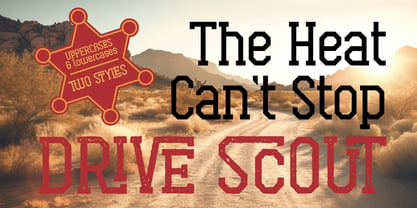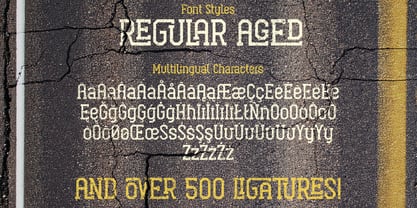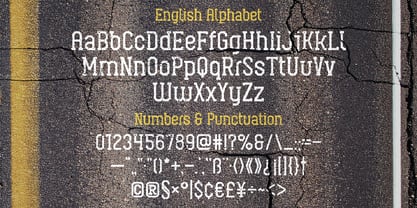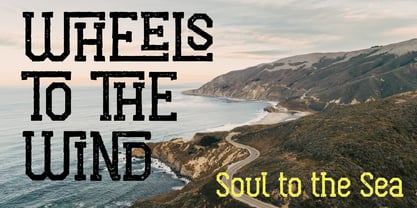
Drive Scout
by Vozzy
The Drive Scout Font Family was designed by Oleg Voznyy and published by Vozzy. Drive Scout contains 2 styles and family package options. More about this family
Introducing the striking font family "Drive Scout," designed specifically for headlines and accent inscriptions that demand attention. This unique typeface features a comprehensive range of characters, including punctuation marks and multilingual options, ensuring versatility across various languages. With an extensive selection of standard ligatures, Drive Scout enhances readability and aesthetic appeal in your projects. Perfect for branding, web design, and editorial use, this font will elevate your beautiful designs to new heights!
Designers: Oleg Voznyy
Foundry: Vozzy